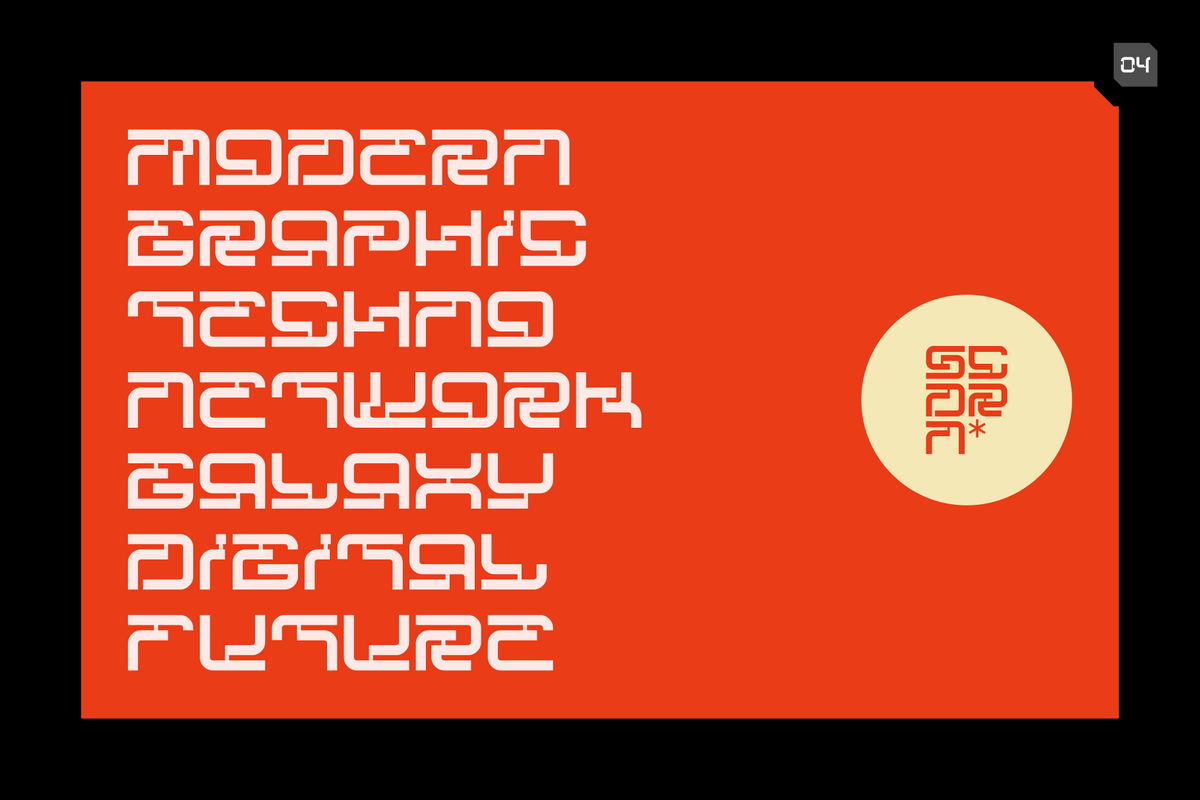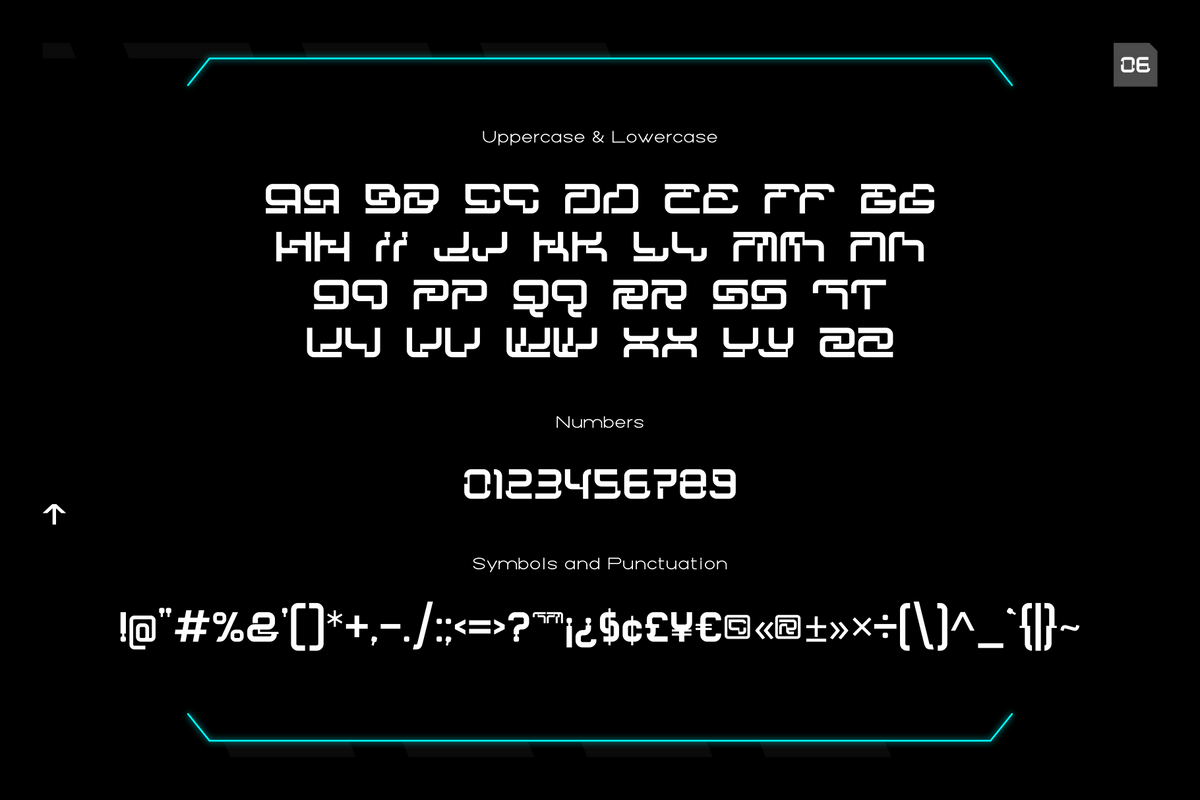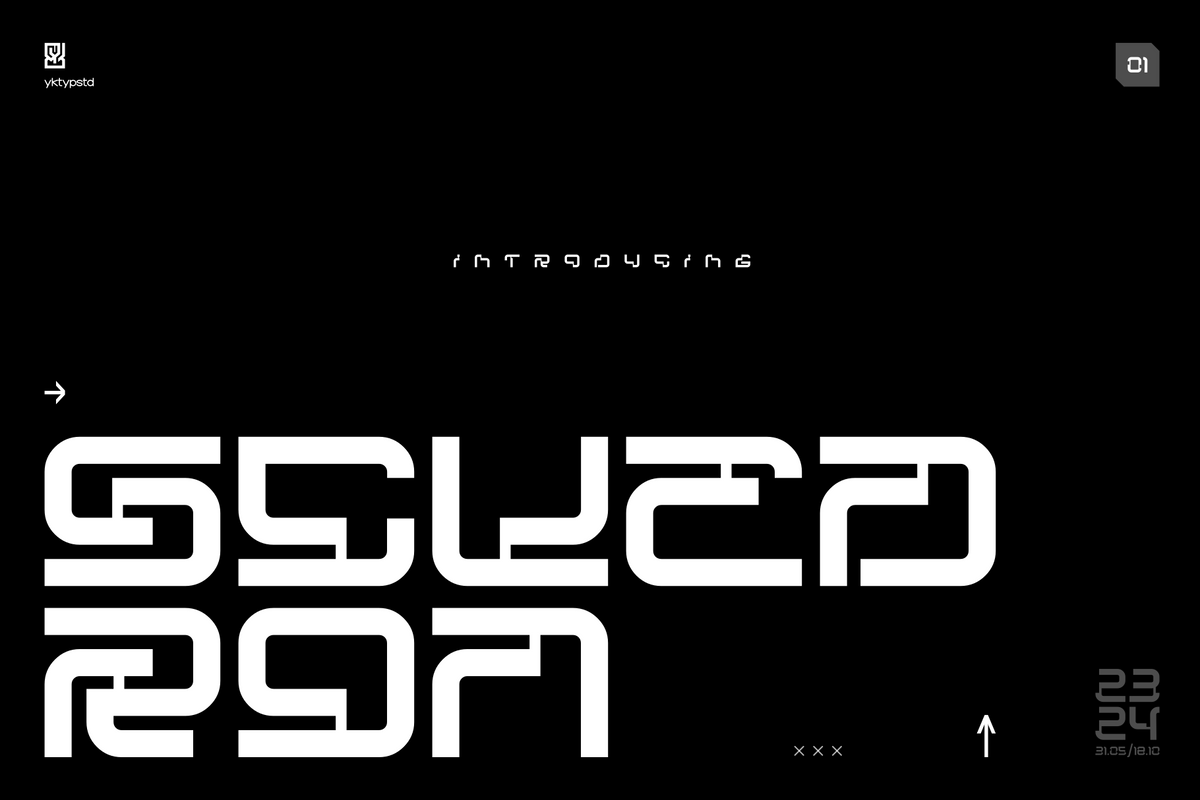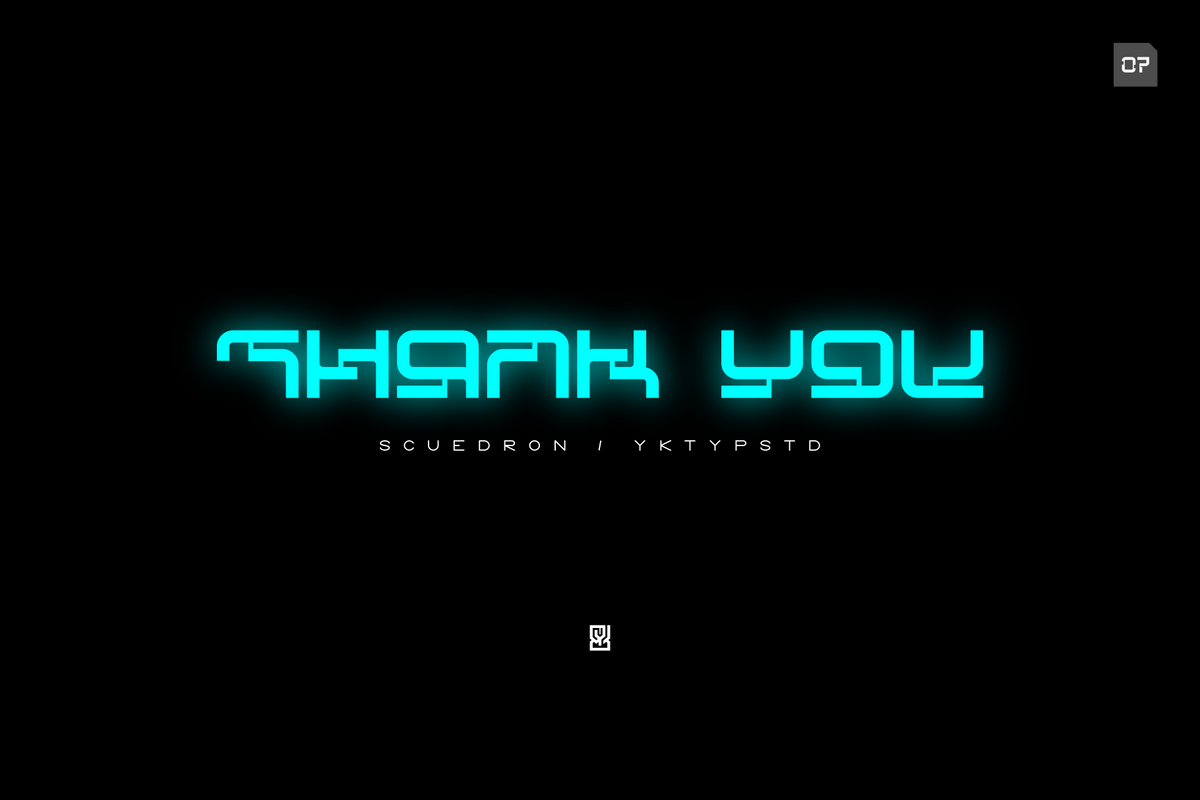
Scuedron - futuristic typeface
Scuedron is the bold, futuristic typeface built for designs that demand to look ahead of their time.
With an innovative play on letterforms, Scuedron brings forward-thinking creativity to any text. Its striking geometric construction and futuristic character design make it a powerful choice for projects that need to stand out with a sci-fi, tech, or next-generation aesthetic.
Scuedron is ideal for a wide range of creative applications, including:
Logos and branding
Labels and packaging
Posters and print design
Book titles and magazine layouts
Film and game titles
Numbers & Punctuation